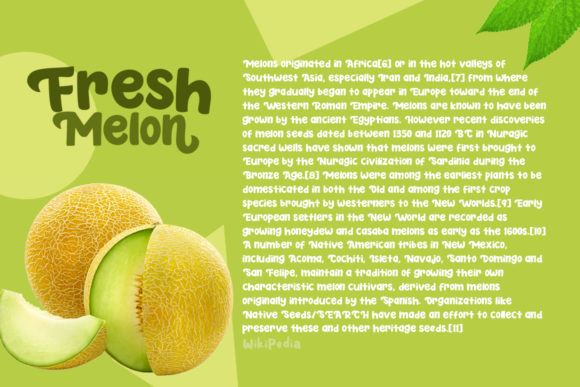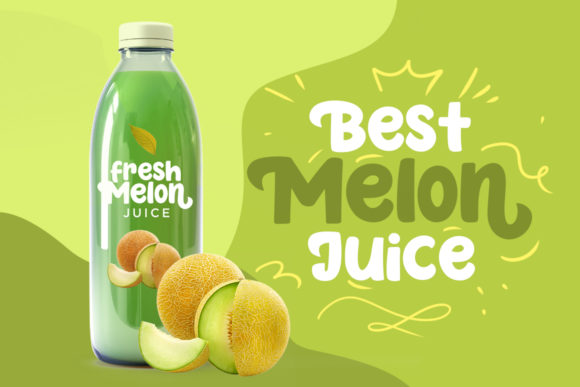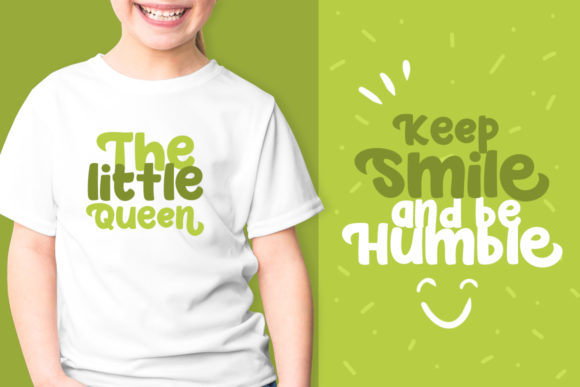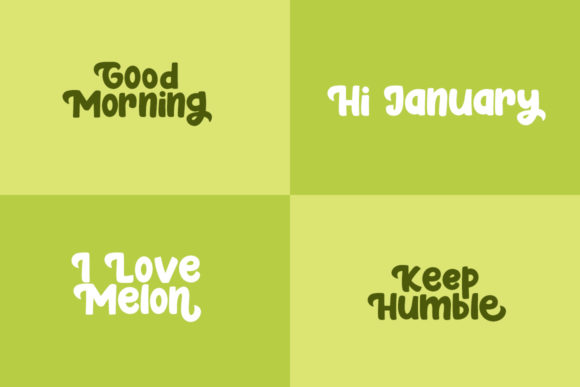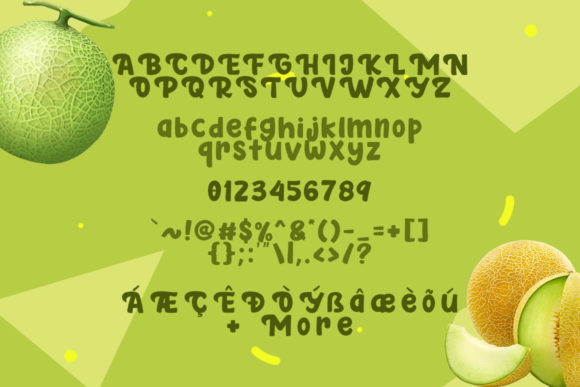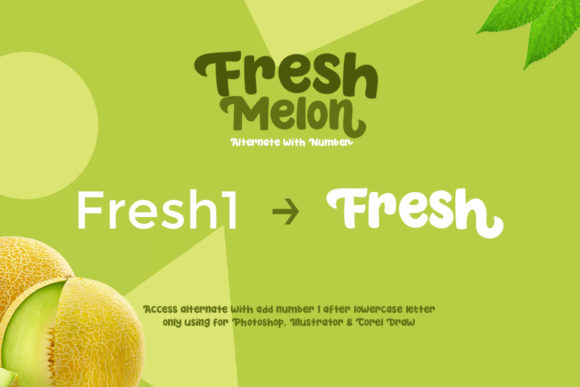
Introducing Fresh Melon Font: The Fun and Bold Display Font for Creative Projects
Are you tired of using the same old fonts for your creative projects? Look no further than Fresh Melon Font, a fun and bold display font that’s perfect for adding a touch of personality to your designs. In this article, we’ll take a closer look at Fresh Melon Font, its features, and how you can use it to take your projects to the next level.
What is Fresh Melon Font?
Fresh Melon Font is a modern display font that’s designed to make a statement. With its bold and playful style, it’s perfect for use in a wide range of projects, from branding and advertising to packaging and crafts. The font features a unique and eye-catching design, with rounded edges and a bouncy feel that’s sure to grab attention.
Key Features of Fresh Melon Font
So what makes Fresh Melon Font so special? Here are just a few of its key features:
- Bold and Playful Style: Fresh Melon Font is designed to be bold and playful, making it perfect for use in projects where you want to make a statement.
- Unique and Eye-Catching Design: The font features a unique and eye-catching design, with rounded edges and a bouncy feel that’s sure to grab attention.
- Highly Versatile: Fresh Melon Font is perfectly suited for use in a wide range of projects, from branding and advertising to packaging and crafts.
- Easily Readable: Despite its bold style, Fresh Melon Font is still highly readable, making it perfect for use in both digital and print projects.
How to Use Fresh Melon Font in Your Projects
So how can you use Fresh Melon Font in your projects? Here are a few ideas to get you started:
- Branding and Advertising: Use Fresh Melon Font to create eye-catching logos, ads, and marketing materials that are sure to grab attention.
- Packaging Design: Add a touch of personality to your product packaging with Fresh Melon Font, perfect for use on labels, tags, and more.
- Crafts and DIY Projects: Use Fresh Melon Font to add a personal touch to your craft and DIY projects, from handmade cards to customized gifts.
- Digital Design: Use Fresh Melon Font in your digital designs, from social media graphics to website headers and more.
Why Choose Fresh Melon Font?
So why should you choose Fresh Melon Font for your projects? Here are just a few reasons:
- Unique and Eye-Catching: Fresh Melon Font is a unique and eye-catching font that’s sure to make your projects stand out.
- Highly Versatile: The font is perfectly suited for use in a wide range of projects, making it a great addition to any designer’s toolkit.
- Easily Customizable: Fresh Melon Font is easily customizable, allowing you to adjust the font to suit your project’s needs.
In conclusion, Fresh Melon Font is a fun and bold display font that’s perfect for adding a touch of personality to your creative projects. With its unique and eye-catching design, highly versatile style, and easily readable format, it’s a great choice for designers and crafters alike. So why wait? Download Fresh Melon Font today and start taking your projects to the next level!